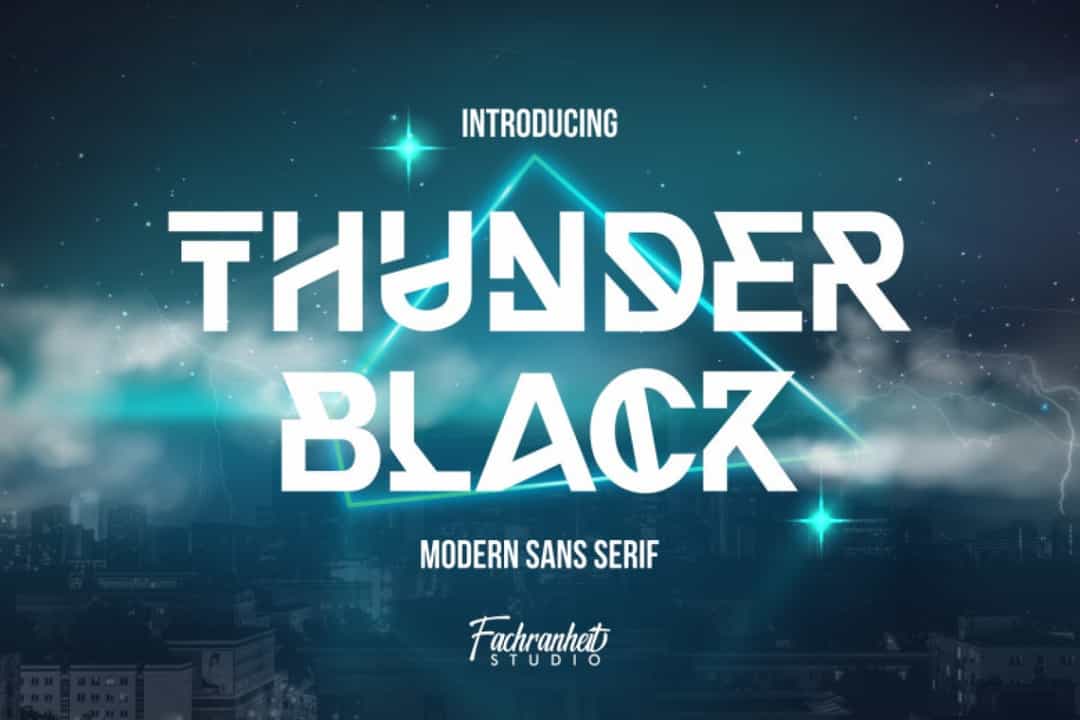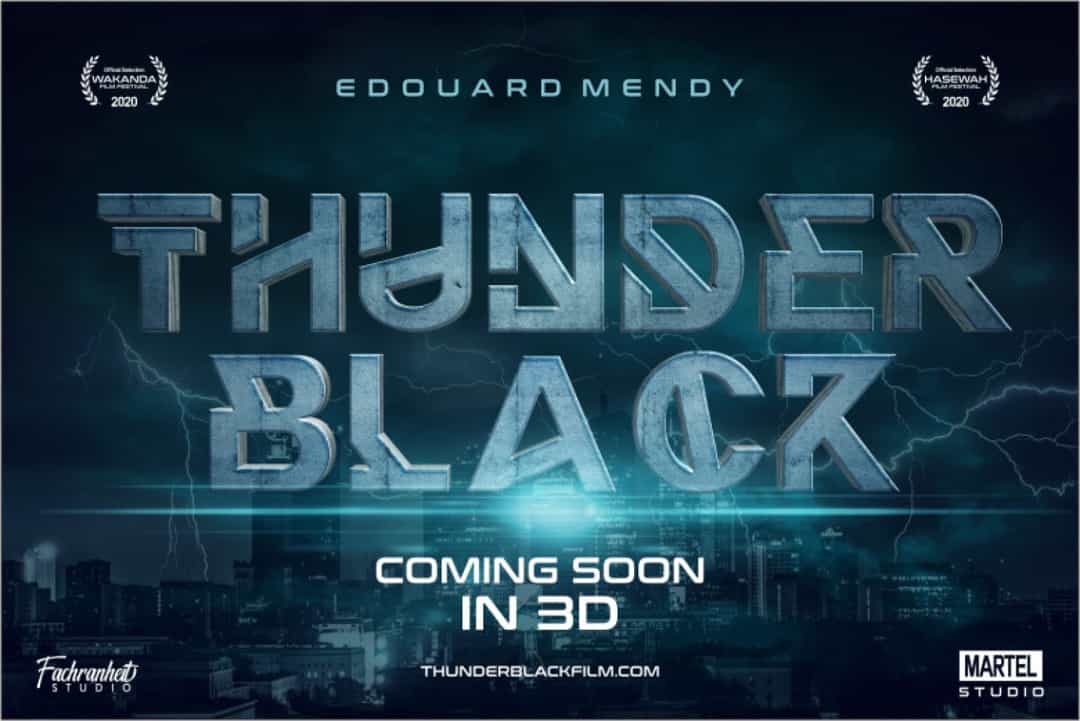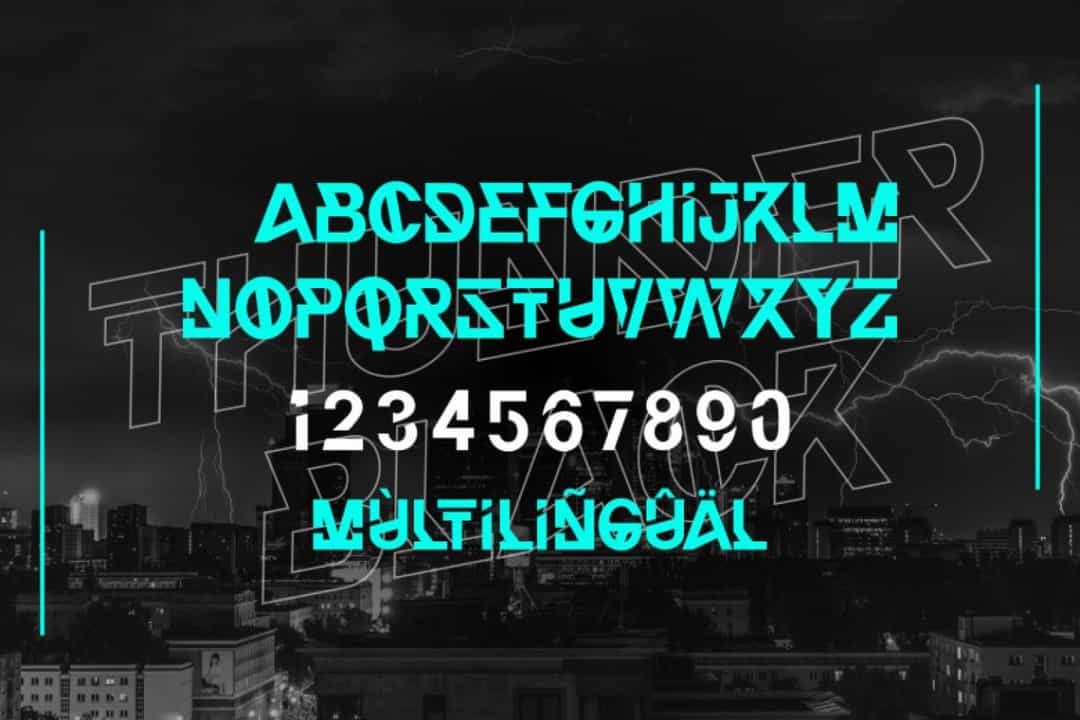
Thunder Black is an elegant and contemporary display sans font. This font works well in many designs; for instance it could be perfect for movie posters, flyers, logotypes, games logos and much more!